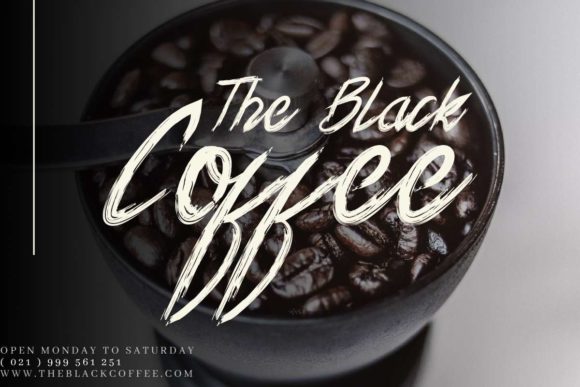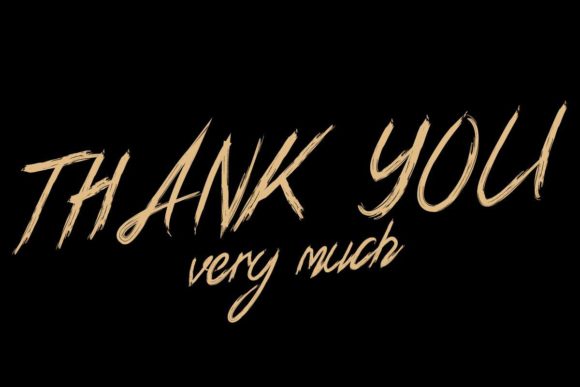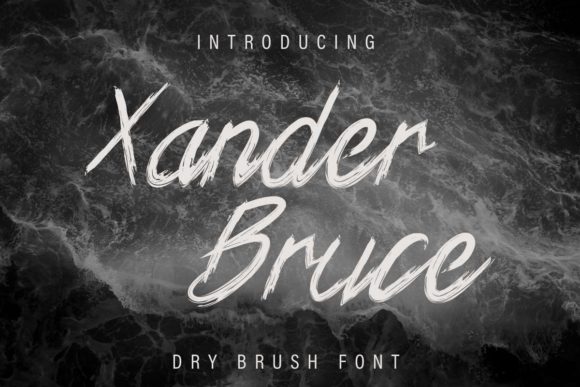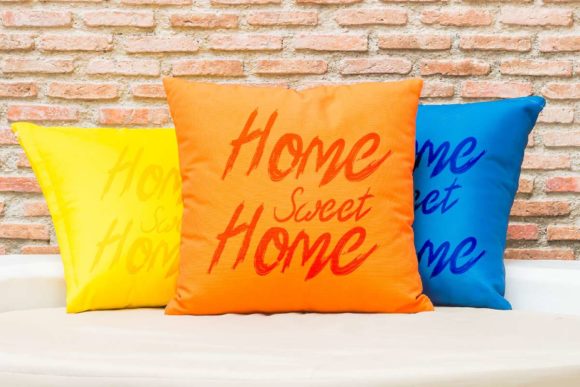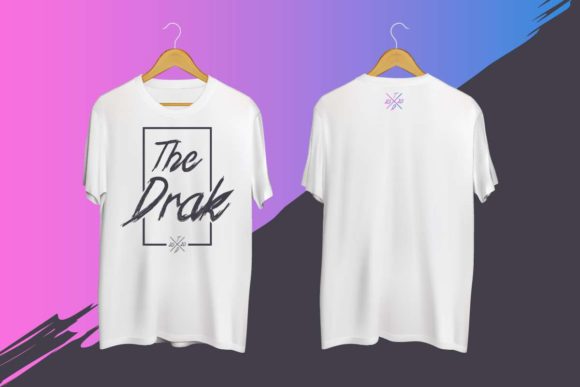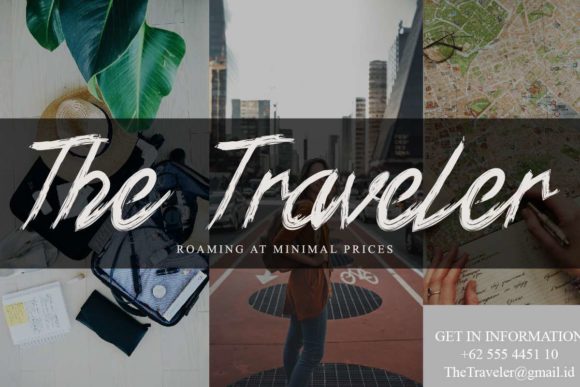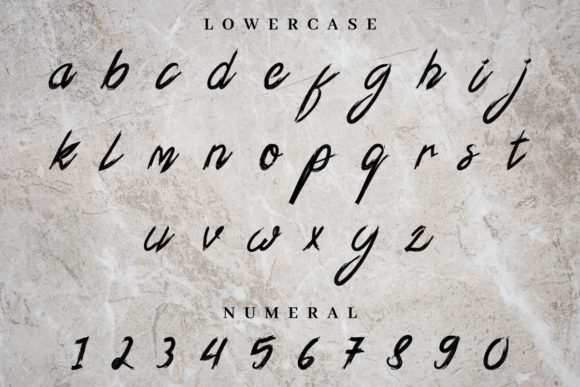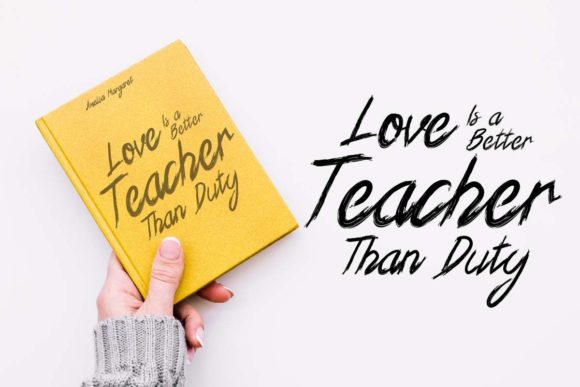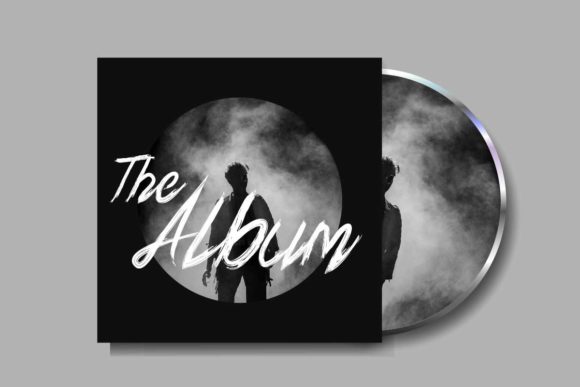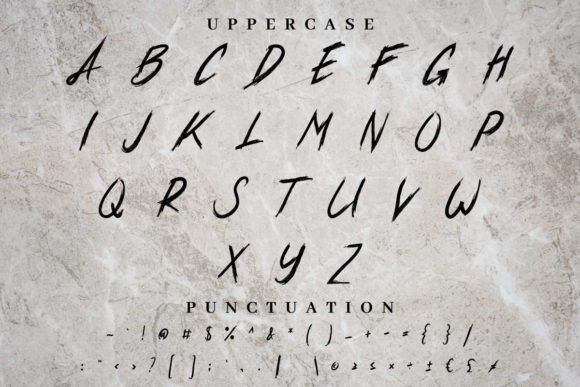
Xander Bruce Font
About Xander Bruce Font
Xander Bruce is a casual, fun handwritten font, created by using a brush pen. Clean and a little bit quirky, this font is the perfect fit for all of your logos, branding, social media, and crafty DIY projects.